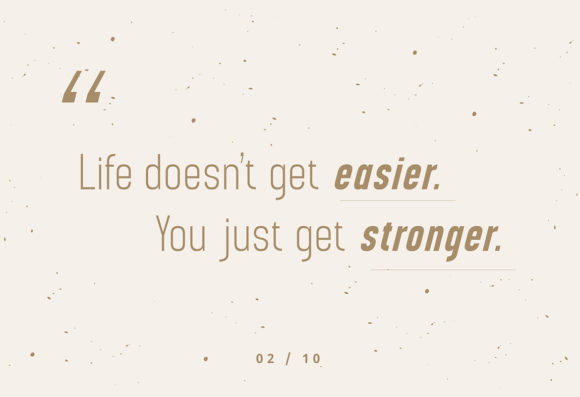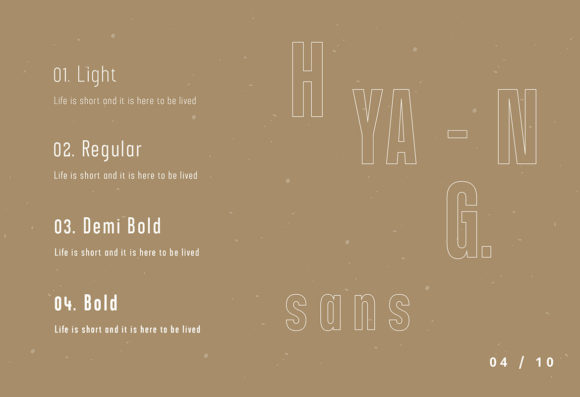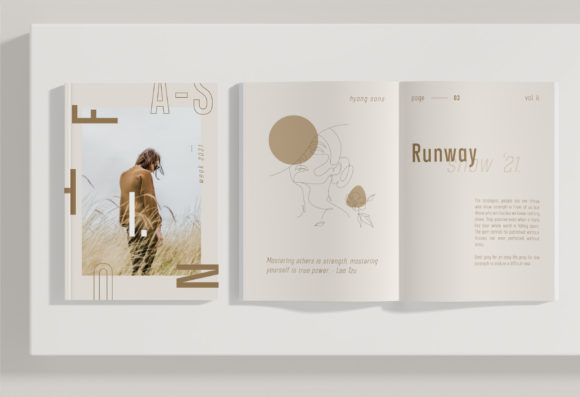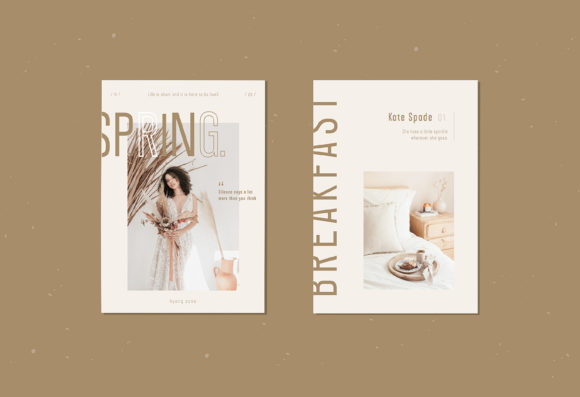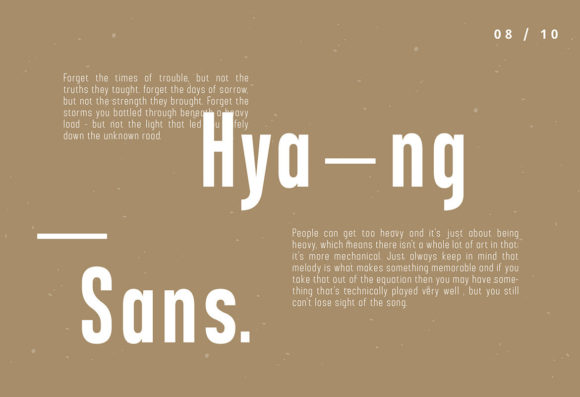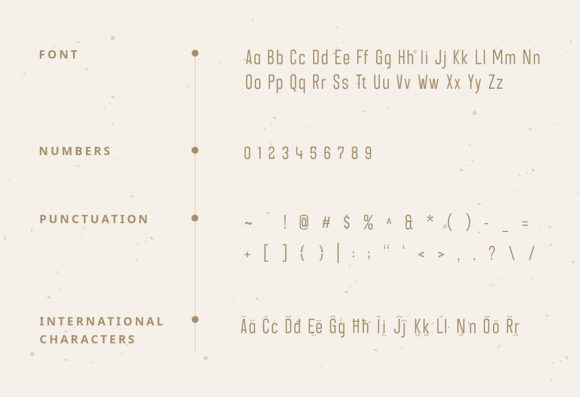
Introduction to Hyang Font
Hyang is a minimal and neat sans serif font.
Why Choose Hyang Font?
Hyang Font offers exceptional quality and versatility, making it a valuable addition to your design toolkit. Whether you’re creating for personal projects or commercial use, Hyang Font delivers professional results.